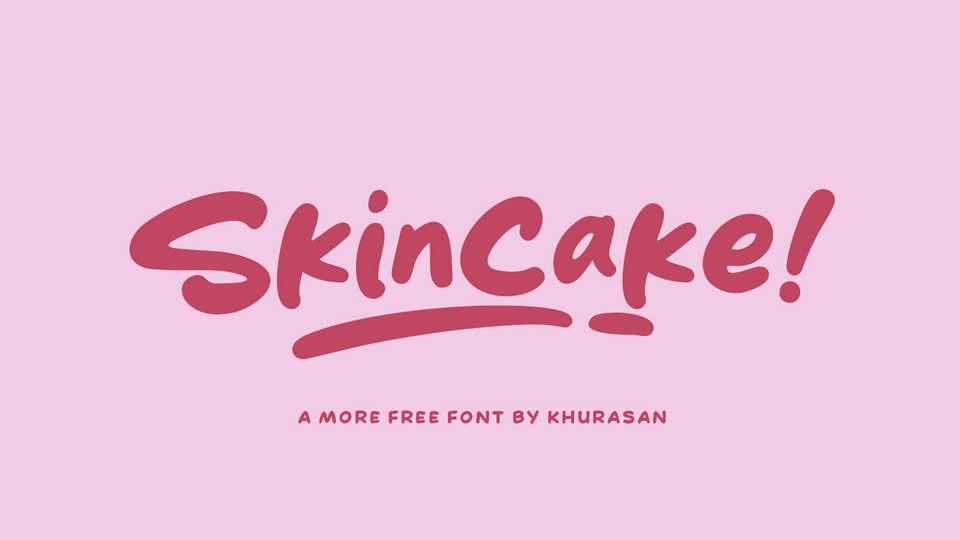
Download Skincake font, a dynamic and bouncy handwritten typeface that infuses your text with a lively rhythm and energetic charm. Each letter in Skincake seems to dance across the page, creating an animated and vibrant feel that captures the essence of spontaneous creativity.